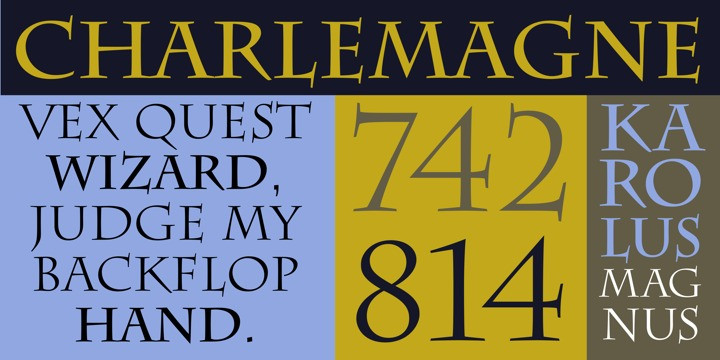
Charlemagne Font
The capital alphabet Charlemagne was designed in 1989 by Carol Twombly. The basic forms are modelled on those used in classical Roman engravings. They are distinguished by pointed serifs which sometimes extend beyond the bounds of the forms, for instance on the E, F and S. These serif forms have made other historial appearances, for example, in handwritten rectangular capitals of the 9th century. The serifs lend the typeface a light ornamental touch. Charlemagne is a typical titling typeface and is best used in large and very large point sizes to emphasize its classical elegance.